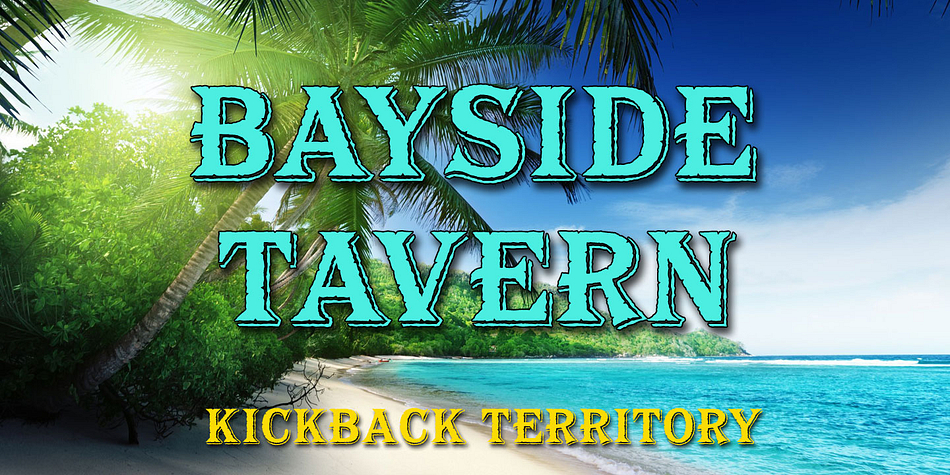
Bayside Tavern
Designed by Michael Hagemann, Bayside Tavern is a display serif and serif font family. This typeface has seventy-two styles and was published by FontMesa.
Bayside Tavern is a weathered version of our Tavern Alt font family.
With its straight sides Bayside Tavern fits better in tight spaces and reads better at smaller point sizes than the regular Bay Tavern version.
With three weights, open faced and outline versions to choose from you’re sure to find the right style for your new project, restaurant menu, logo, t-shirt design or Pirate costume party.
While our original Tavern Alt font has been increased to include five weights additional weights for Bayside Tavern will have to wait for now, adding the deeper notched cut in’s were all done by hand which causes a lot of cramping so a long break is needed before creating the extra weights.